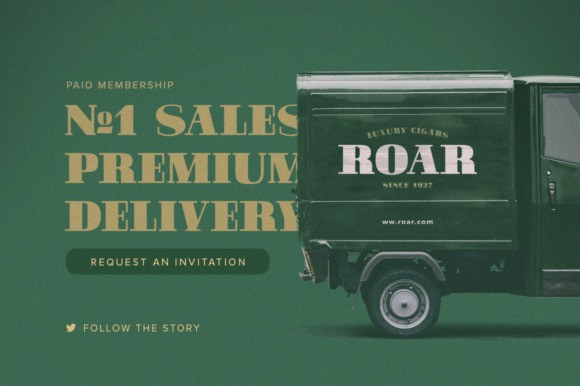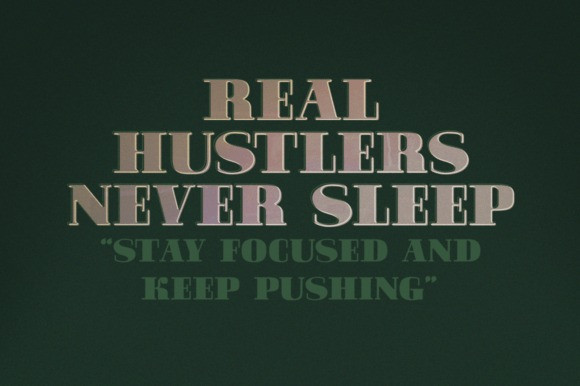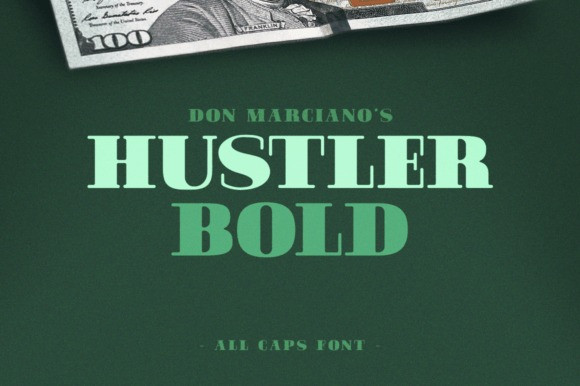
Hustler Font
Hustler Serif Font is a bold serif font created for short memorable phrases, with a modern rounded aesthetic over a classic line form, this font offers an “I’m here” attitude that helps translate every message with power and elegance.